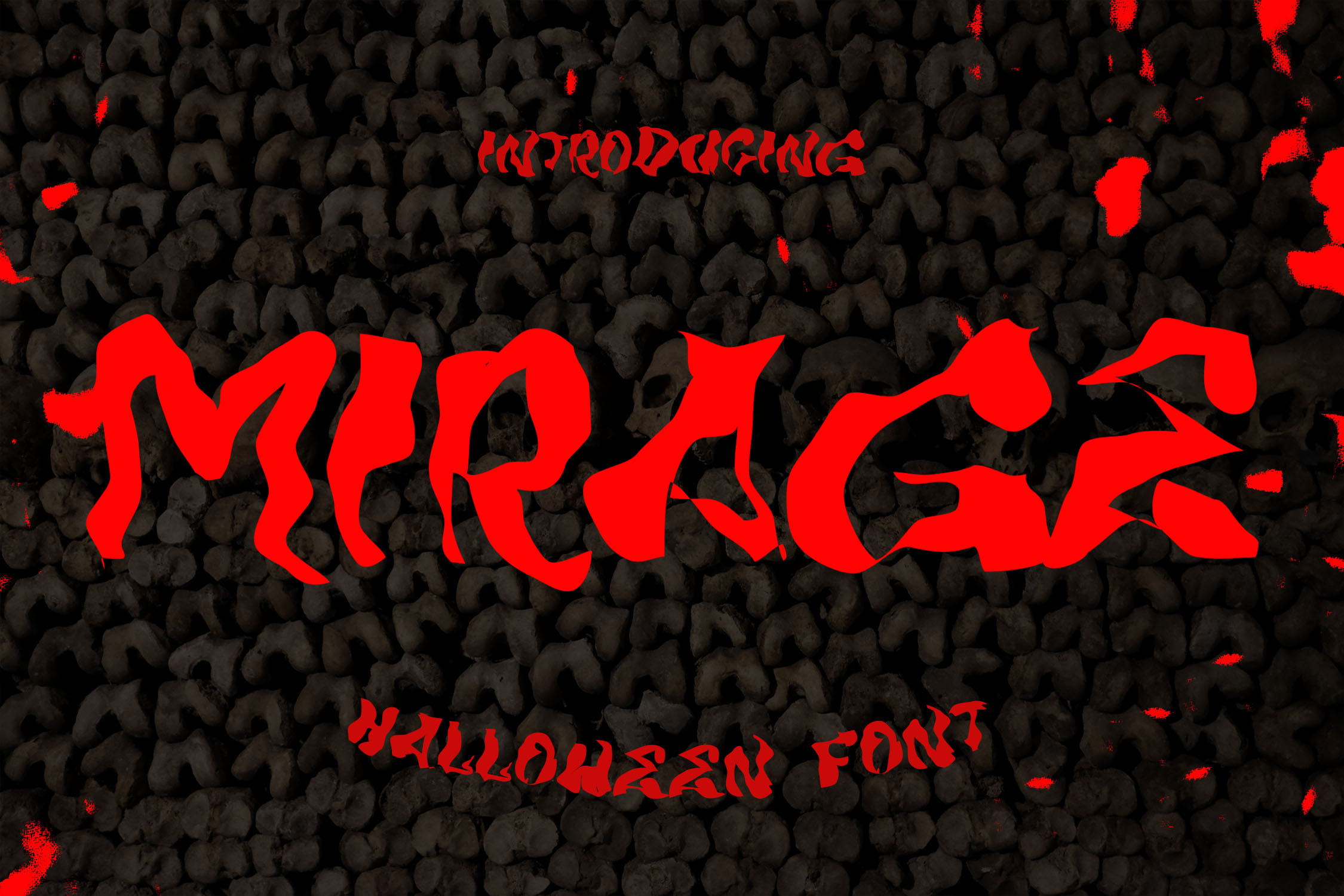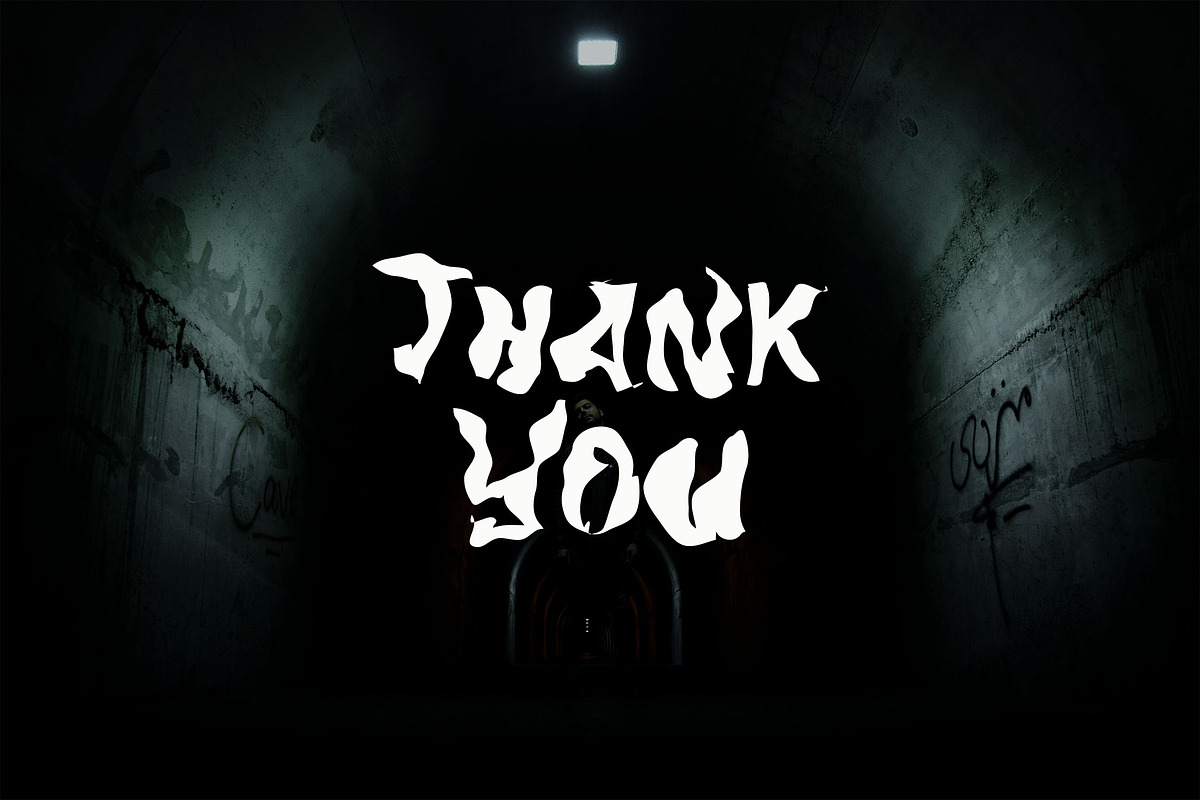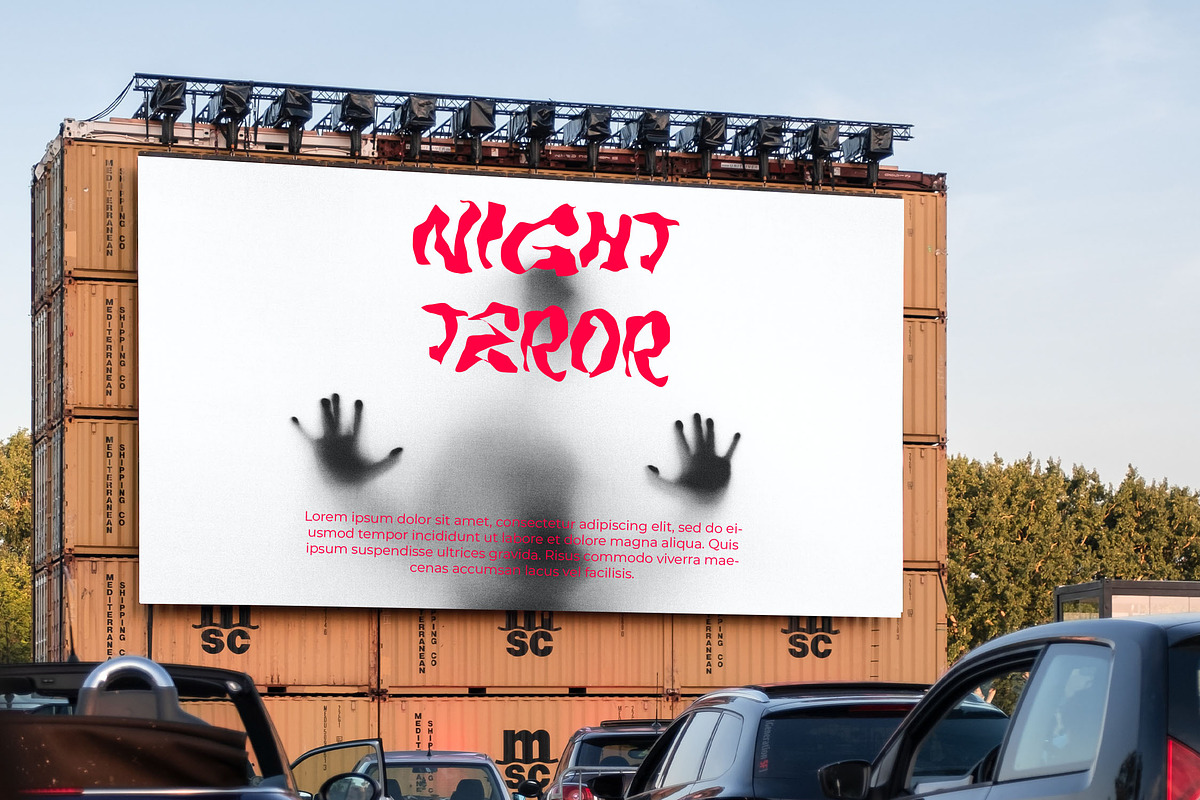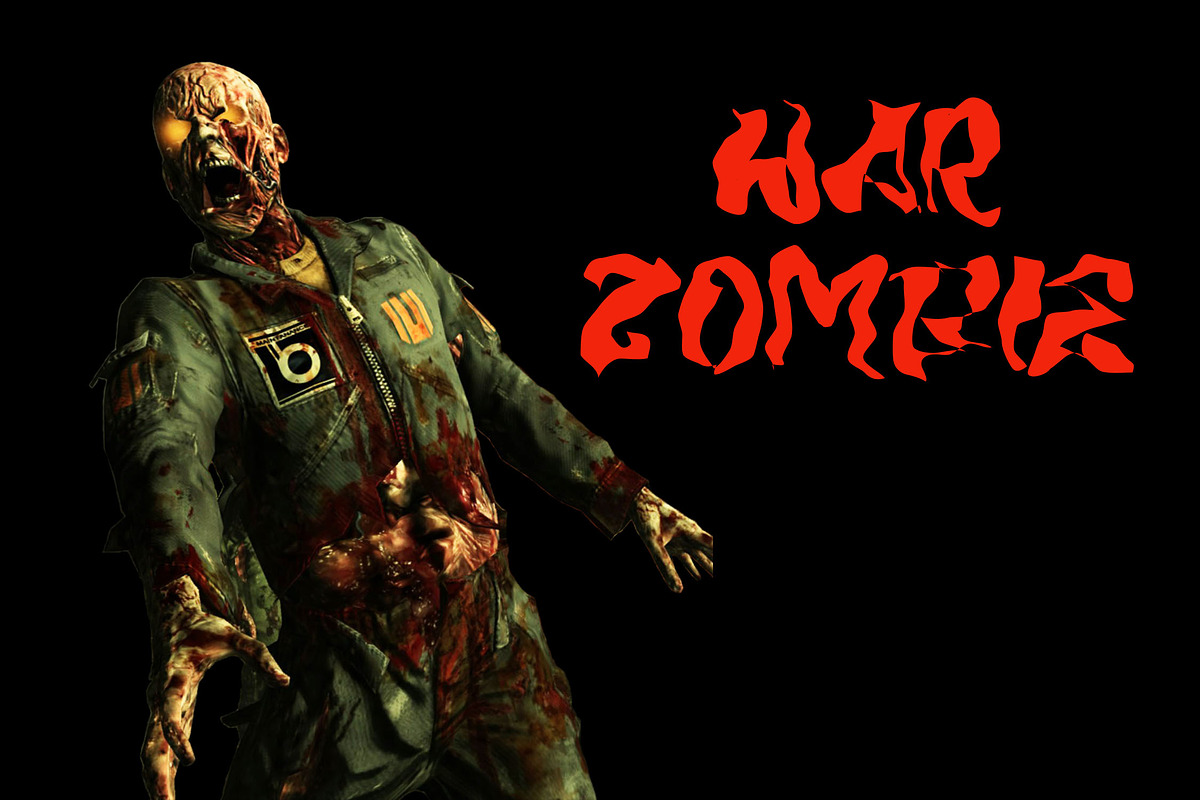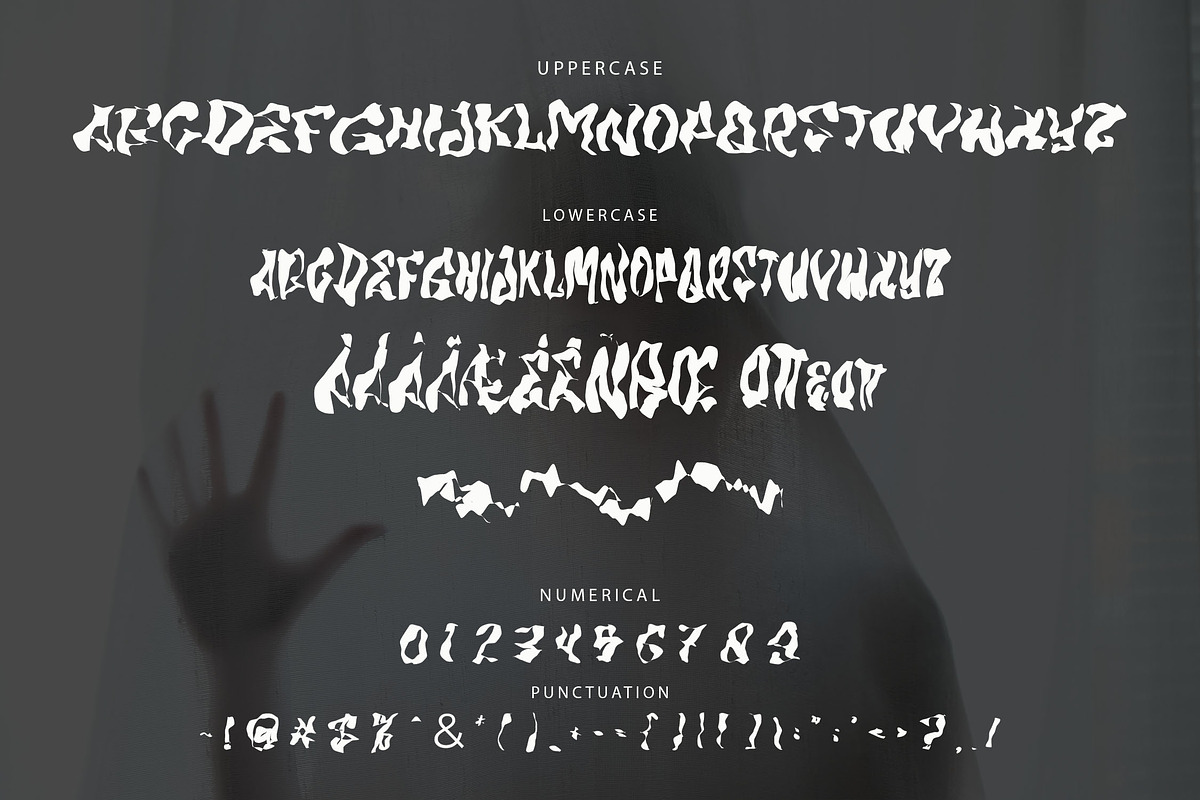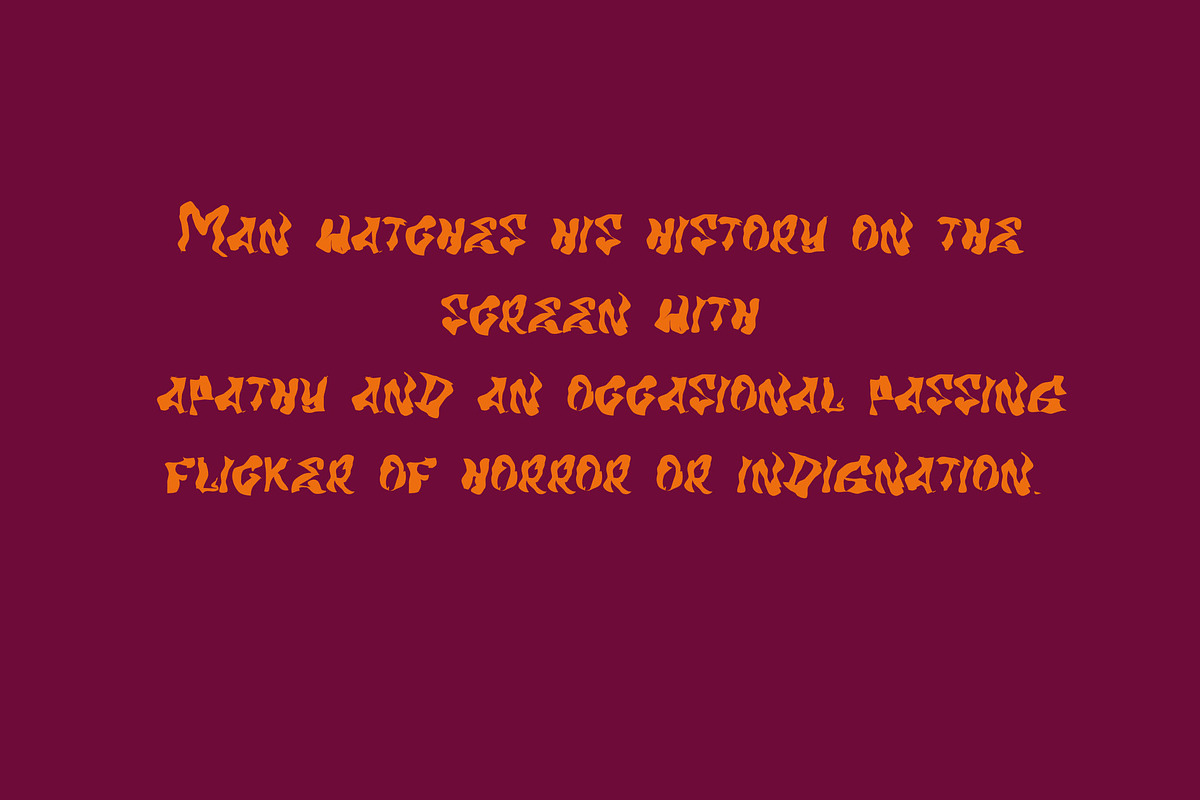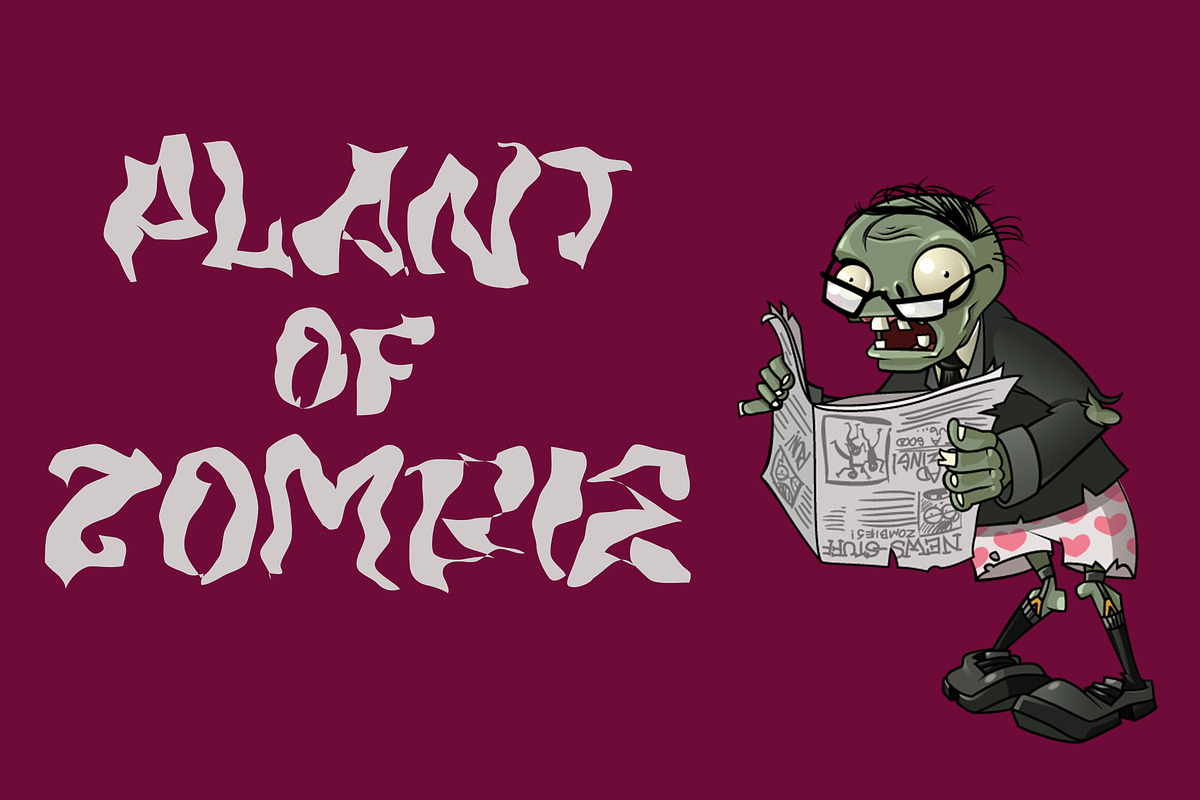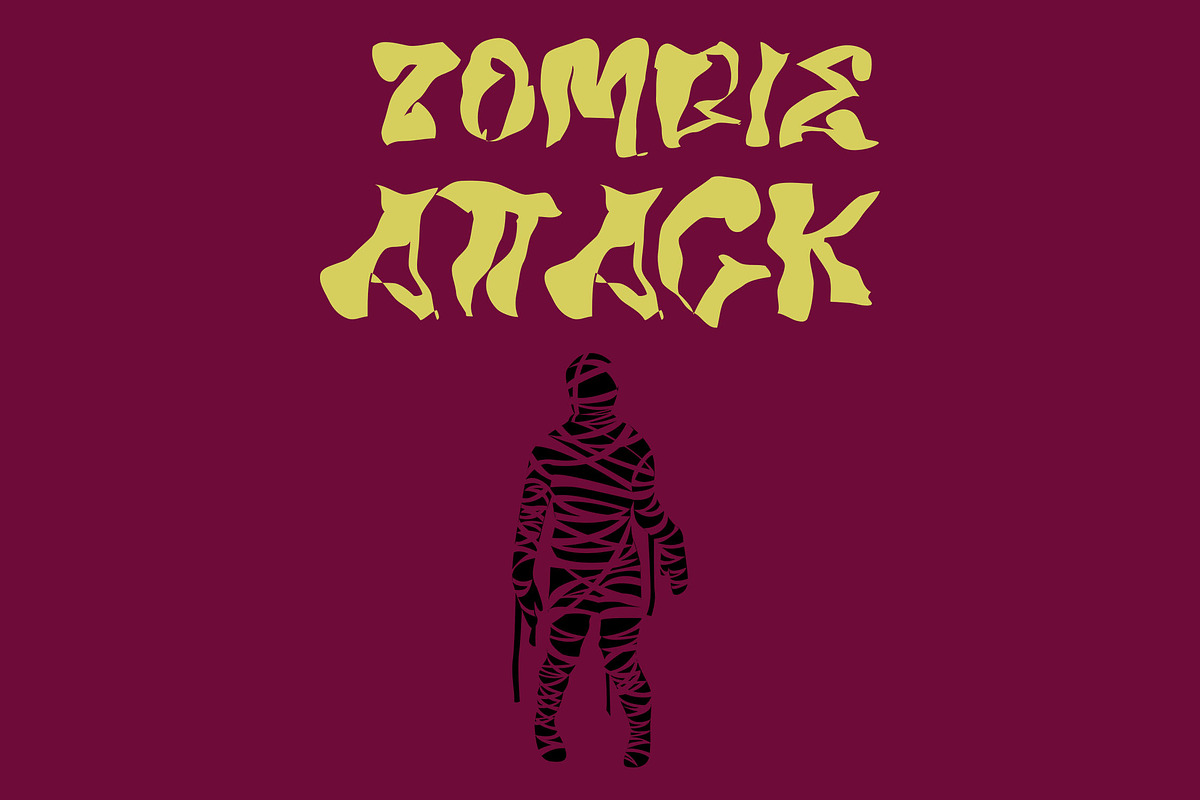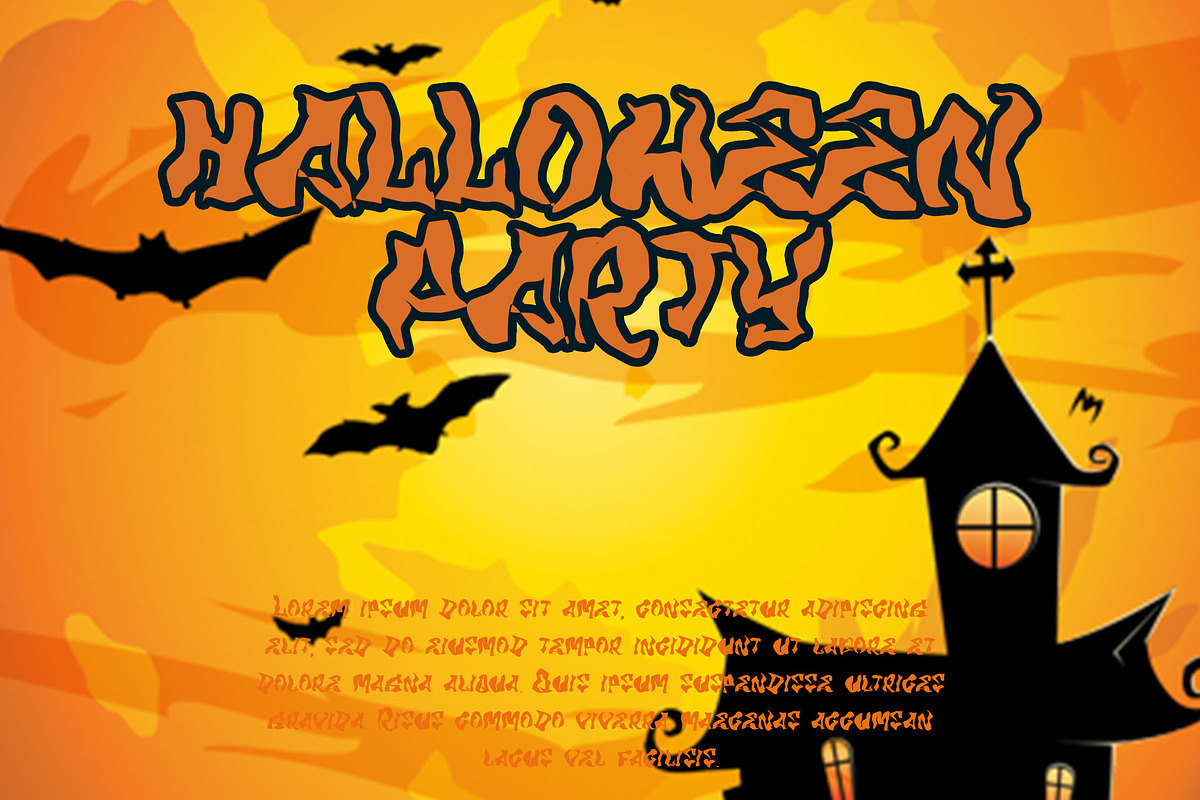
MIRAGE - Halloween Horror Font
MIRAGE is a horror Halloween themed font with a very unique shapes character. This font is perfect for Halloween card and Halloween banner designs. This font is suitable for making previews and covers, horror logo designs, shirt designs, and other horror graphic needs.